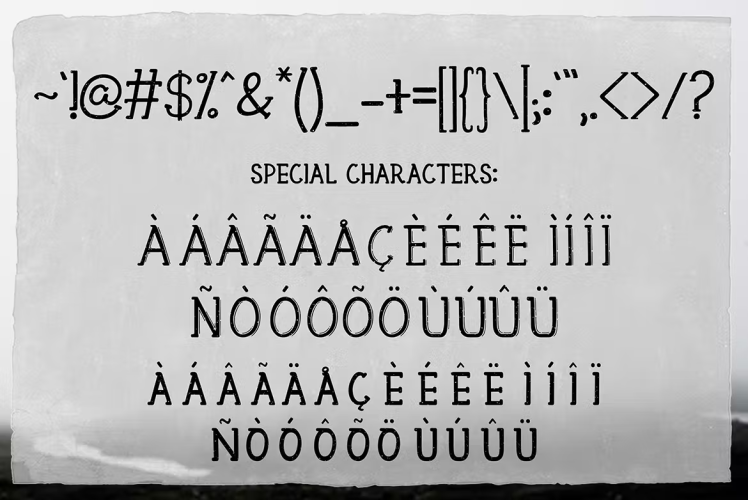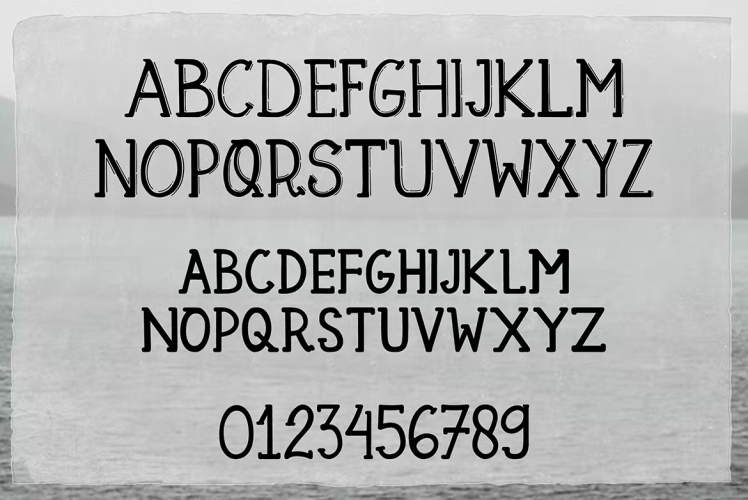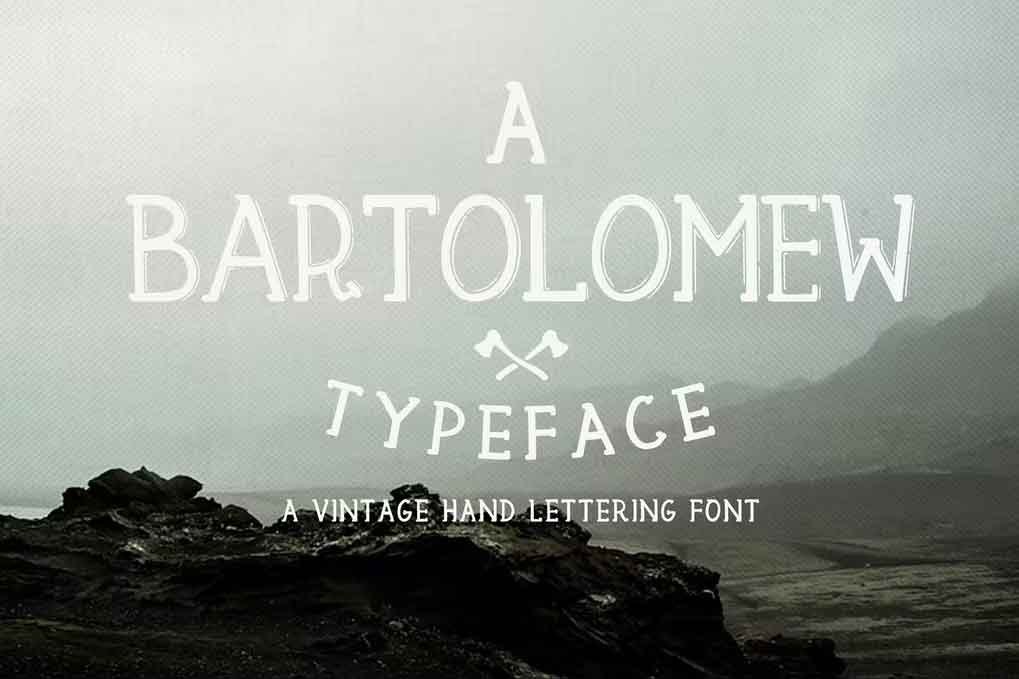
Bartolomew Font
Bartolomew is a vintage hand lettering typeface. The font comes in 2 types, regular and printed style that allow you to create rustic and vintage typography with persona…
Bartolomew is a vintage hand lettering typeface. The font comes in 2 types, regular and printed style that allow you to create rustic and vintage typography with personal touch for your design work: wedding invitation, badge, sticker, poster and much more.
Bartolomew Font gives long-form text a classic, trustworthy rhythm — ideal for magazine spreads, annual reports and book interiors.
Pair Bartolomew Font with generous letter-spacing for wordmarks in fashion, hospitality, wine and jewellery branding.
Use Bartolomew Font for slide titles in Keynote, PowerPoint or Google Slides to add authority without looking dated.
Bartolomew Font is a Serif Fonts typeface tagged Craft, Poster, Serif, Serif Fonts. It works well for headlines, logos, posters, social media graphics and branding projects that need a distinctive serif fonts look.